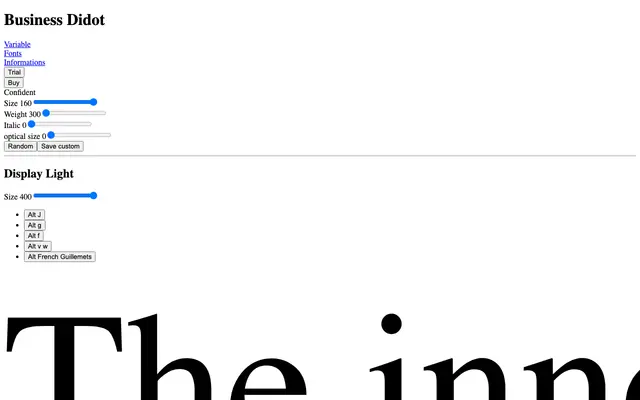
Business Didot
A variable Didot-style display serif from Pizza Typefaces, offering high contrast and alternates across Light and Book weights.
Built around the sharp thick-thin contrast and vertical stress of the Didone tradition, Business Didot is a variable display serif with Light and Book weights alongside italic cuts. The family includes several alternate glyphs for characters such as J, g, f and v/w, giving typographers options for tightening or opening the feel of a composition. A dedicated Display optical size and variable axes for weight, italic and optical size make it adaptable for headline and branding work.
The name and visual specimens confirm a high-contrast Didot-style typeface with the vertical stress, fine hairline serifs and dramatic thick-thin contrast typical of Didone classification.